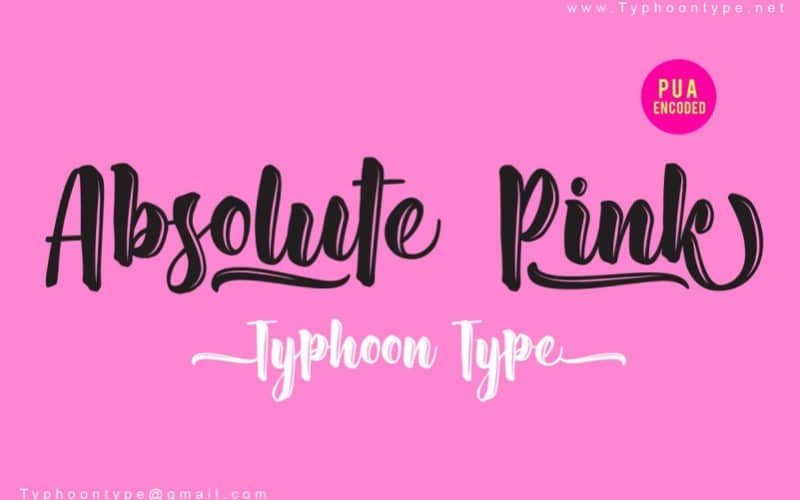
Absolute Pink This font perfect for logos, name tag, advertising, product packaging, clothing, social media & greeting cards.
Type ( before word to get beginning swash and Type ) after word to get the ending swash.
Example : (Typhoon Type)
- Designer: TyphoonType – S. Srisopha